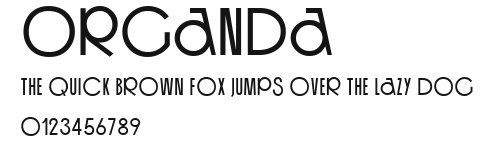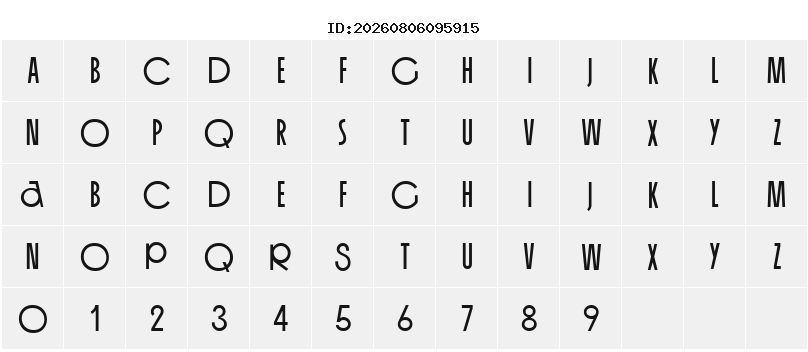
• Font Name: Organda
• Full Font Name: Organda Bold
Organda.ttf is a modern, elegant sans-serif font designed for ultimate readability and visual harmony. Perfect for branding, headlines, web design, and print materials.